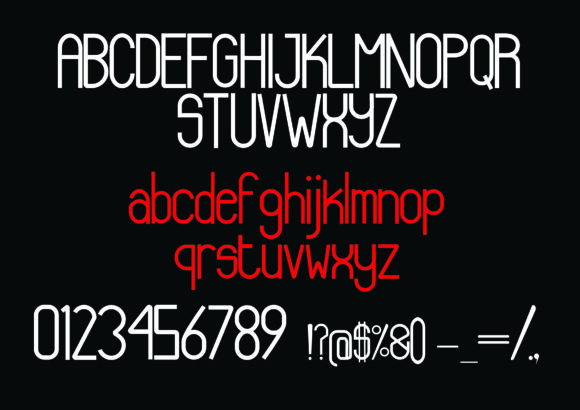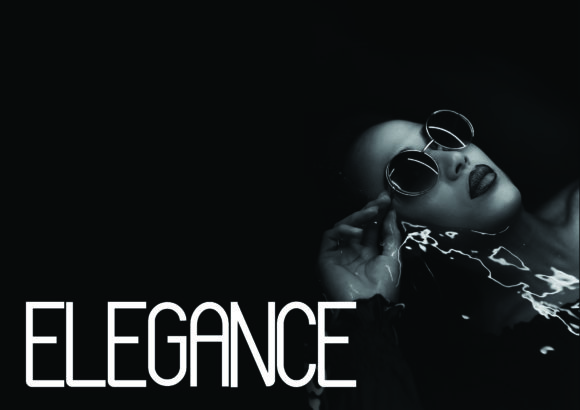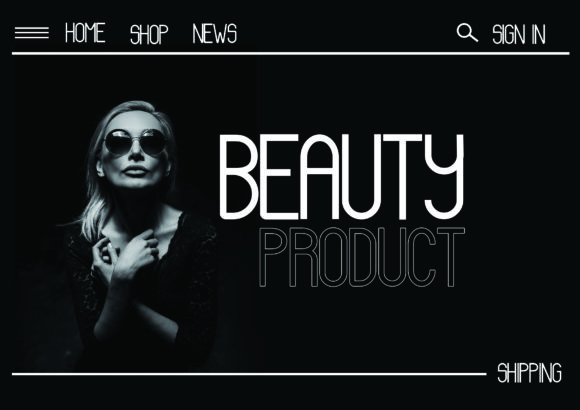
The Birth of a New Font: Apaya Font Takes Center Stage
Have you ever been scrolling through your social media feeds, and suddenly, a striking font catches your eye? It’s a moment that sparks creativity and inspires you to take note. For designers, these moments are what drive us to create and innovate. And, in the world of typography, a new font is about to make its debut – Apaya Font, a modern sans serif display font that’s sure to turn heads.
Apaya Font is designed to be versatile, making it perfect for logo design, social media, movie titles, and even book titles. Its condensed style allows it to pack a punch, even in short text, while still being effective for longer passages. What sets Apaya Font apart is its unique blend of modernity and readability, making it a valuable asset for designers looking to elevate their work.
Key Features of Apaya Font
• Font Family: Apaya Font is a sans-serif font family with a modern and minimalist design.
• Unique Characteristics: The Apaya Font features a clean and geometric design, with distinctive letterforms and a high x-height, making it highly readable in digital and print media.
Review of Apaya Font
Overall, I’m quite impressed with the Apaya Font. It has a unique, modern feel that’s sure to catch attention.
• Uniqueness: Apaya Font has a distinctive design that stands out from more common fonts.
• Legibility: The font is easy to read, even at smaller sizes, which is a must for any digital font.
• Customizability: The font comes in a variety of weights and styles, giving designers plenty of options for customization.
• Limited language support: The font may not support all languages, which could be a problem for global projects.
• Not ideal for body text: While Apaya Font is great for headings and titles, it may not be the best choice for large blocks of body text.
• May not be suitable for print: The font’s digital design may not translate well to print materials, where a more traditional font might be preferred.
Overall, I think the Apaya Font is a great choice for designers looking to add some visual interest to their projects. Just be aware of its limitations, and use it thoughtfully.
Apaya Font is a modern, sans-serif font that works well for digital designs, especially for headlines and titles. Use it to create a clean and minimalist look for your designs.
Some common use cases for Apaya Font include:
• Social media posts and ads
• Presentations and slideshows
• Business cards and resumes
• Websites and digital products
Alternatives to Apaya Font for Designers
Bebas Neue is a sans-serif font that is ideal for creating clean and modern designs. It is a great alternative to Apaya Font for designs that require a bold and elegant look. Bebas Neue is a more versatile font compared to Apaya Font, with a wider range of uses, including logos, headings, and body text.
Montserrat is a sans-serif font that is designed for urban environments. It is a great alternative to Apaya Font for designs that require a strong and modern look. Montserrat is more geometric compared to Apaya Font, making it a great choice for designs that require a more structured feel.
Open Sans is a sans-serif font that is highly legible and versatile. It is a great alternative to Apaya Font for designs that require a clean and modern look. Open Sans is more neutral compared to Apaya Font, making it a great choice for designs that require a subtle and understated feel.